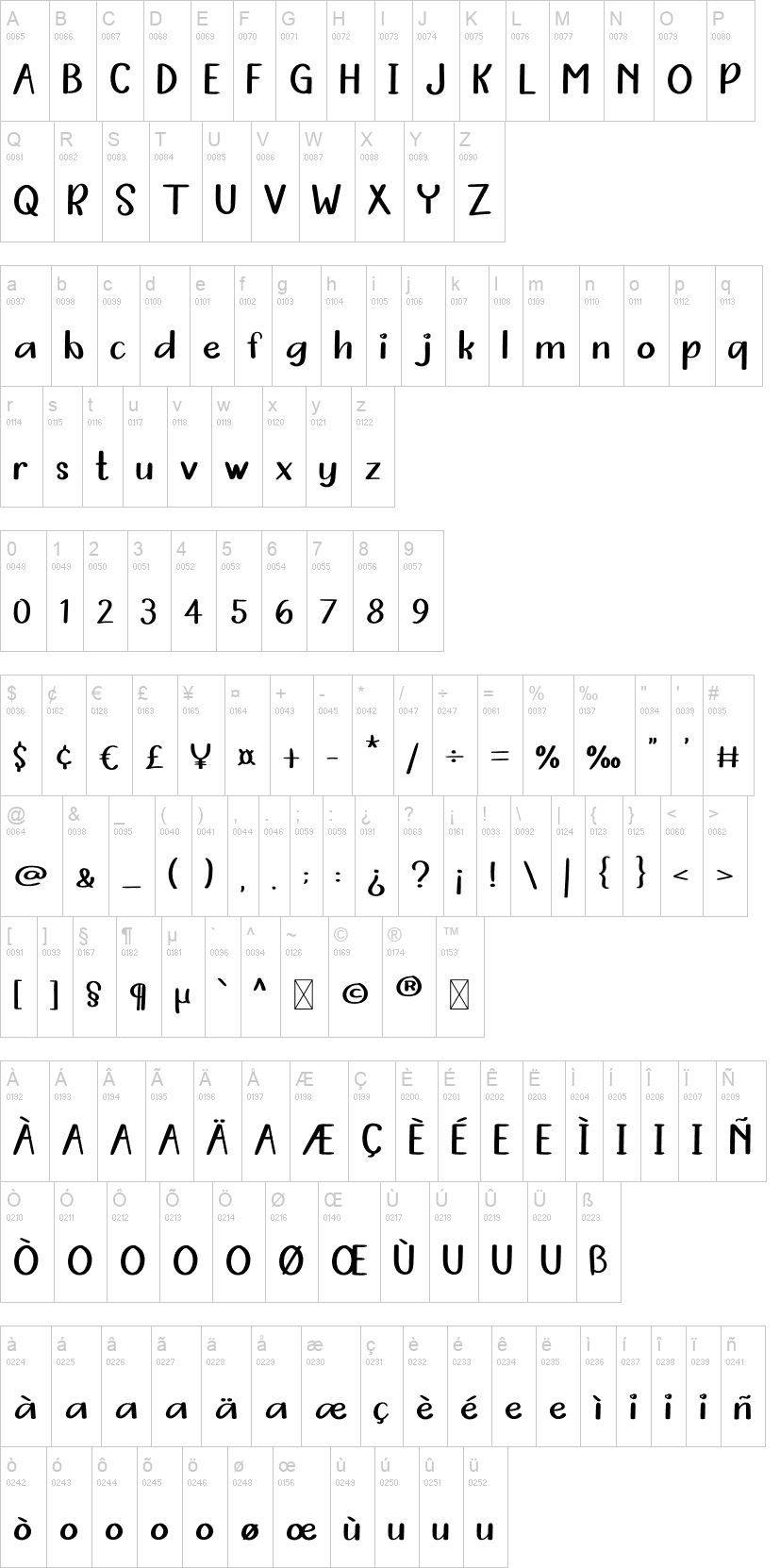
Note of the authorWood Working is a cute, friendly and fun handwritten font. This font is perfect for children themed designs, especially when combined with bright colors.